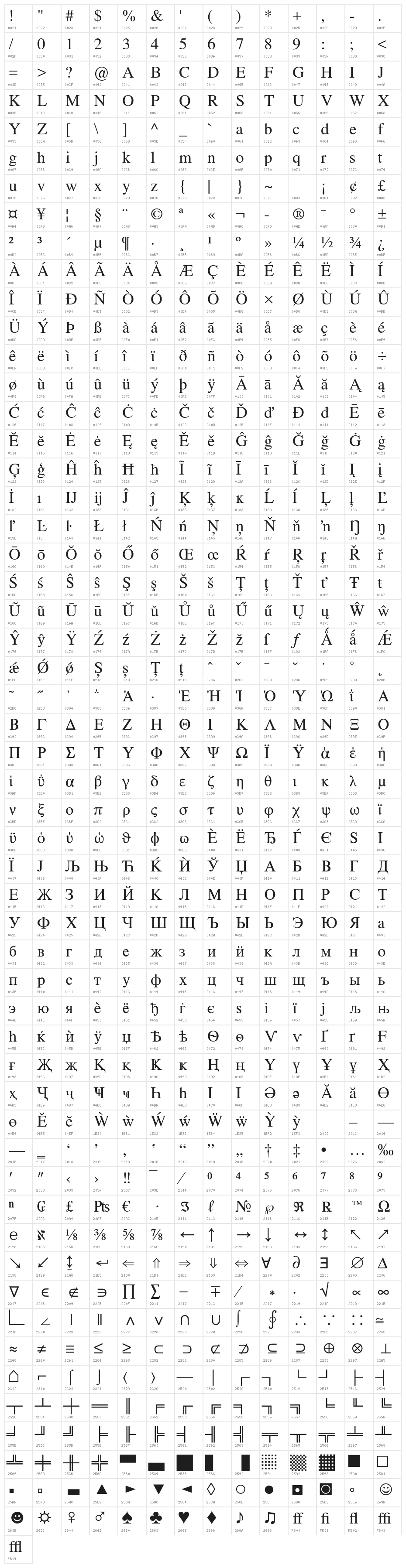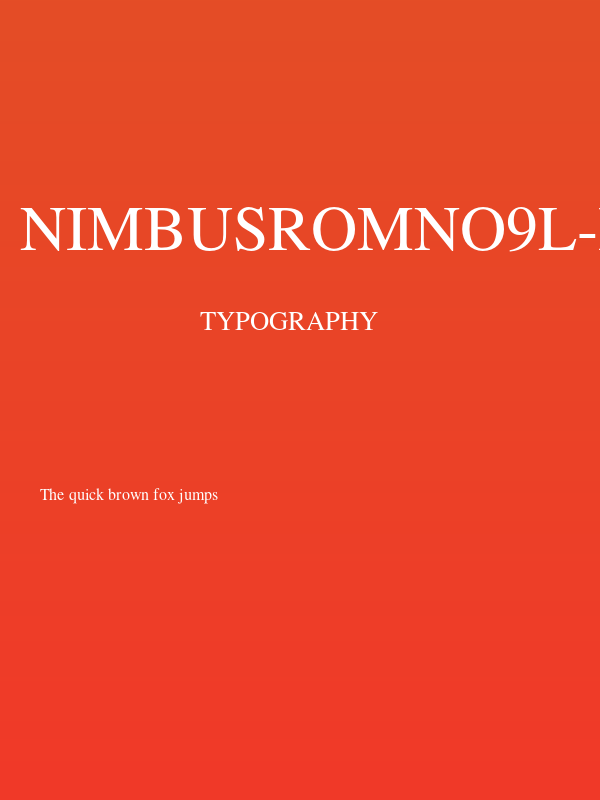
NimbusRomNo9L-Reg Font
NimbusRomNo9L-Reg Description
This font features a classic serif design with elegant and refined strokes. The uppercase letters are well-proportioned, exhibiting a traditional and formal appearance. The lowercase letters maintain a consistent style, with smooth curves and a balanced structure. The numerals are clear and legible, complementing the overall aesthetic. Special characters are distinct and harmonize with the rest of the typeface, making it versatile for various applications. The font's design is suitable for conveying a sense of professionalism and sophistication.
| Use Case | Body text, Headlines, Formal documents |
| Proposed Projects | Ideal for use in formal documents, book publishing, academic papers, and branding materials that require a touch of elegance. |